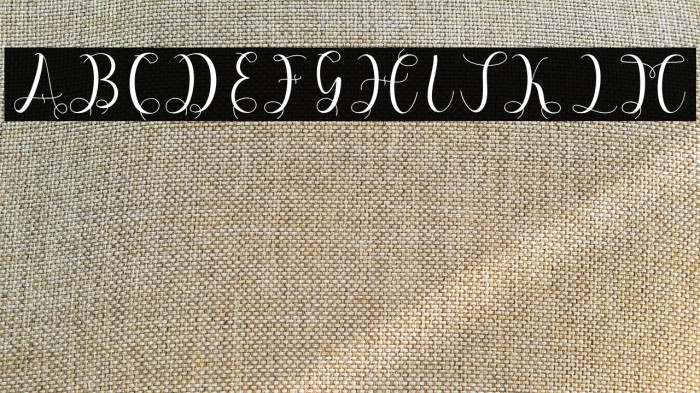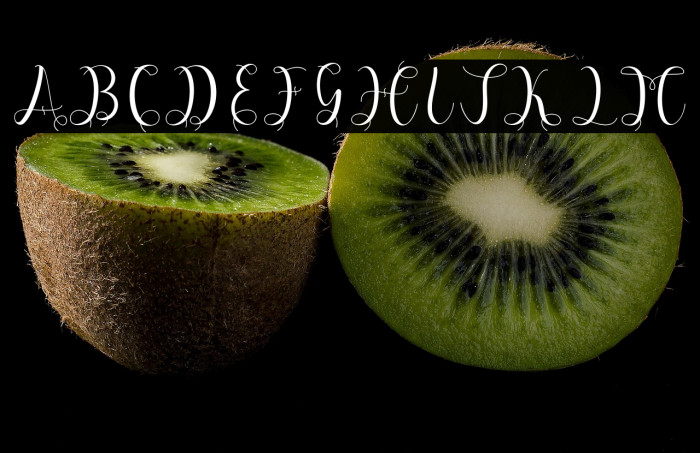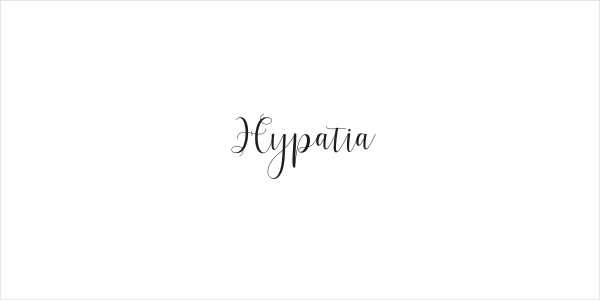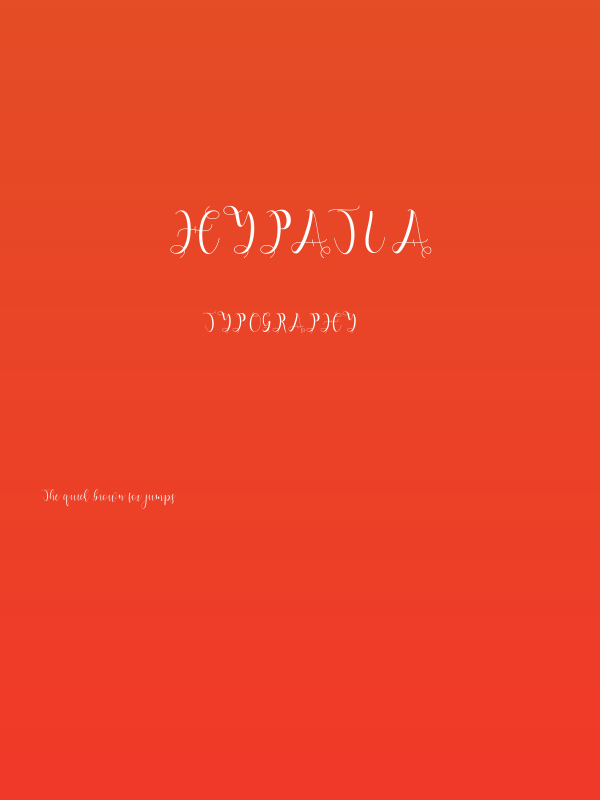
Hypatia Font
Hypatia Description
This elegant script font features intricate and flowing letterforms, characterized by its decorative swashes and loops. The uppercase letters are particularly ornate, with each character displaying unique flourishes that add a touch of sophistication and artistry. The lowercase letters maintain a more consistent style, offering a balance between readability and decorative appeal. The numerals are styled to match the overall aesthetic, with slight variations in stroke width that enhance the font's dynamic appearance. Special characters are equally detailed, ensuring a cohesive look across all text elements. This font is perfect for projects that require a touch of elegance and creativity.
| Proposed Projects | Ideal for wedding invitations, elegant branding, greeting cards, and artistic posters. |